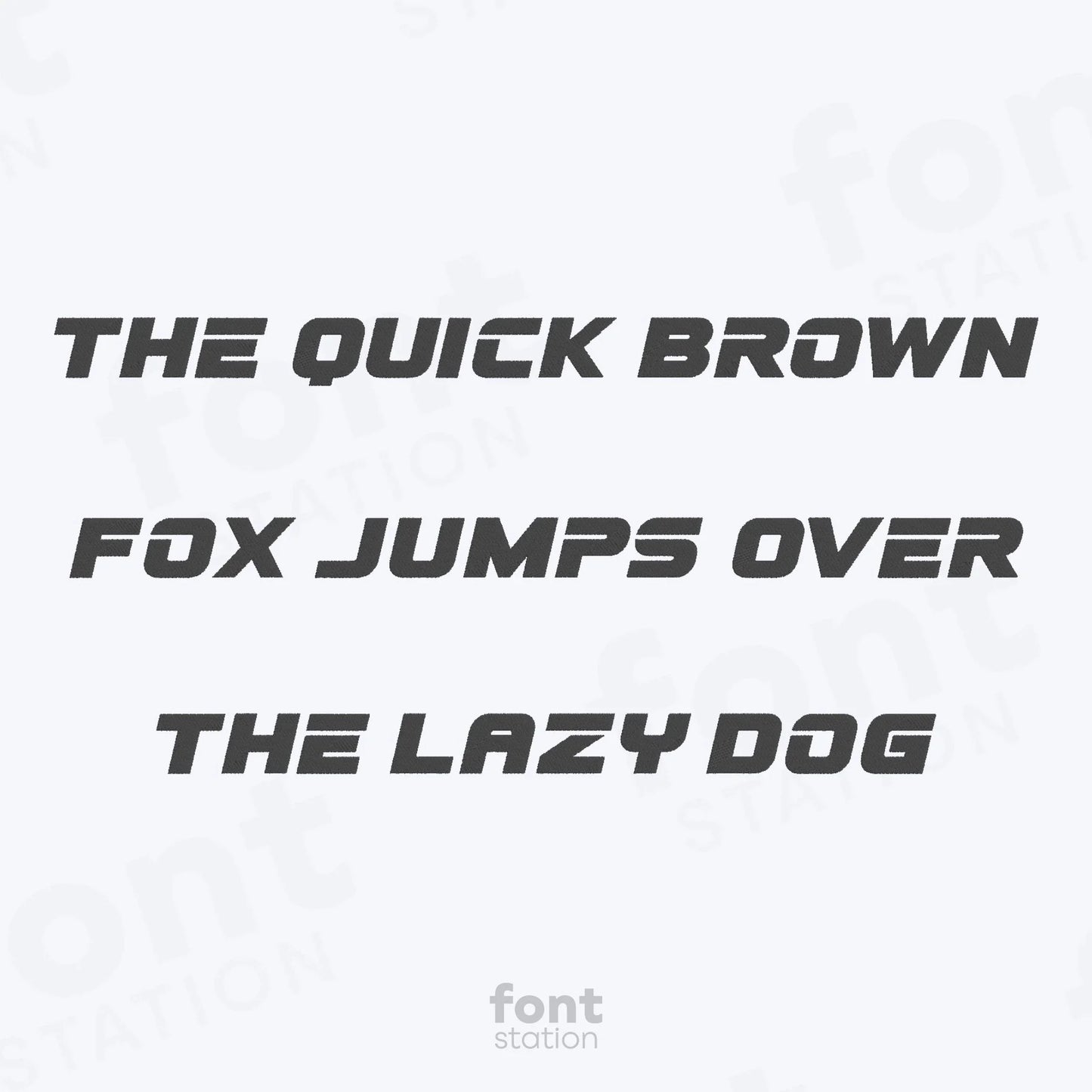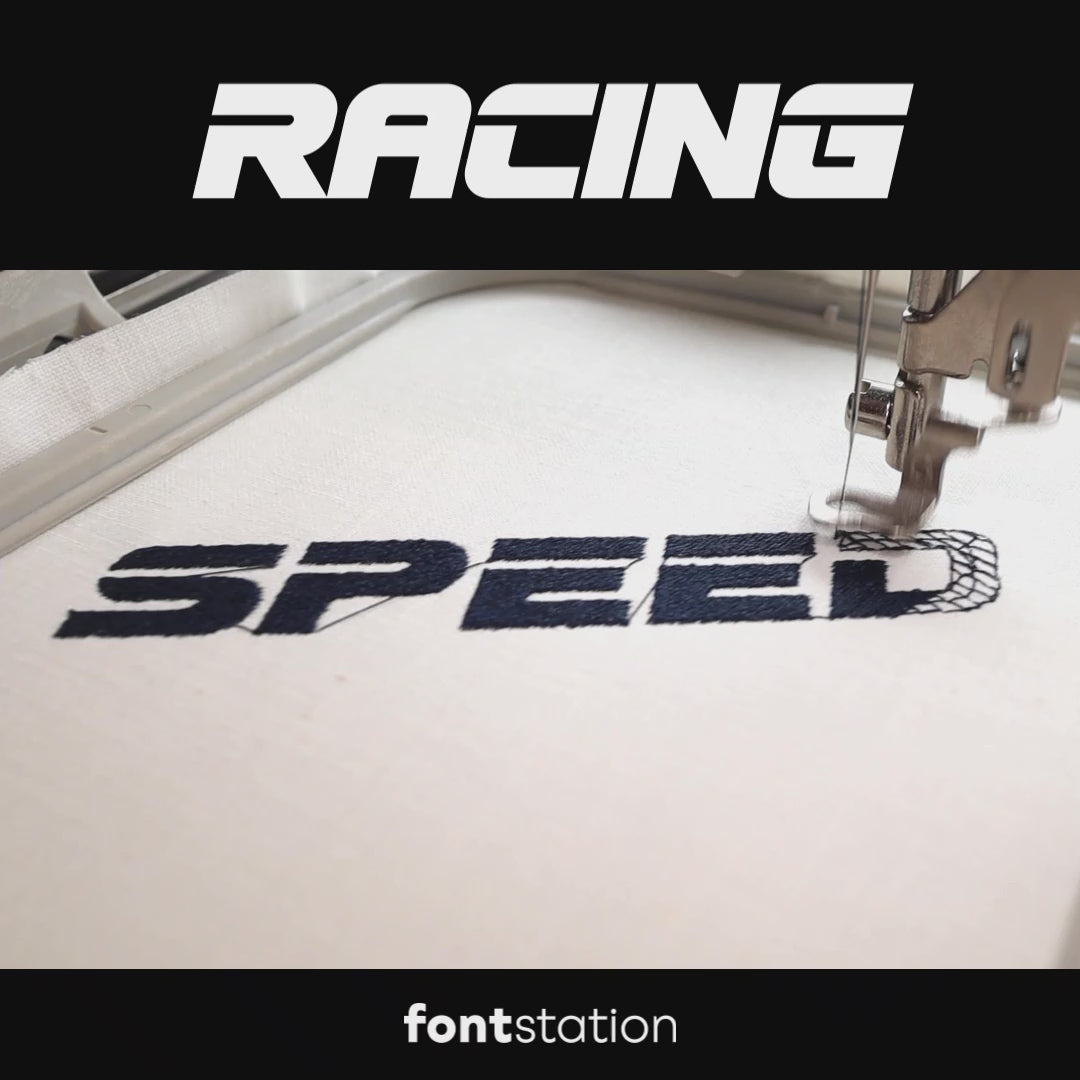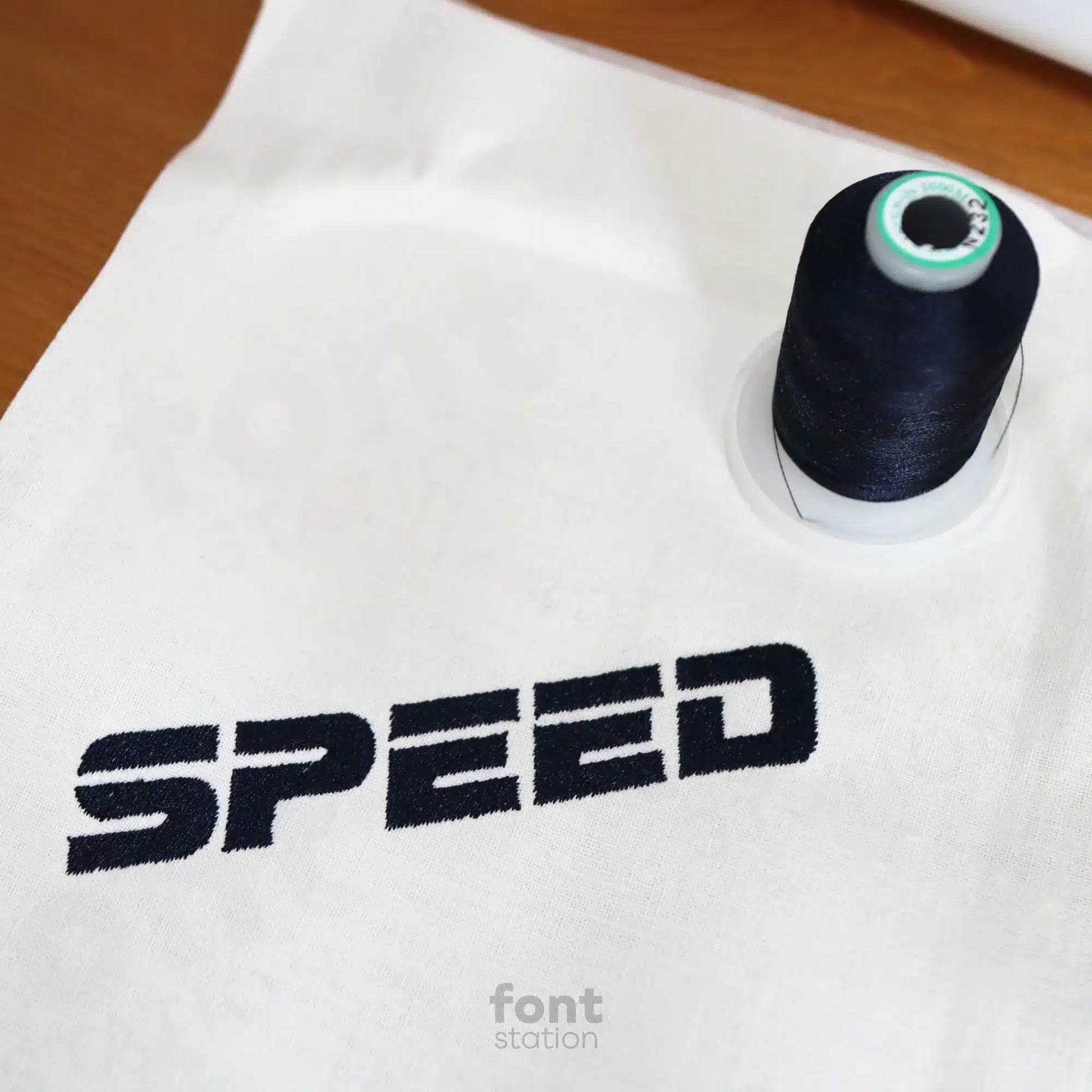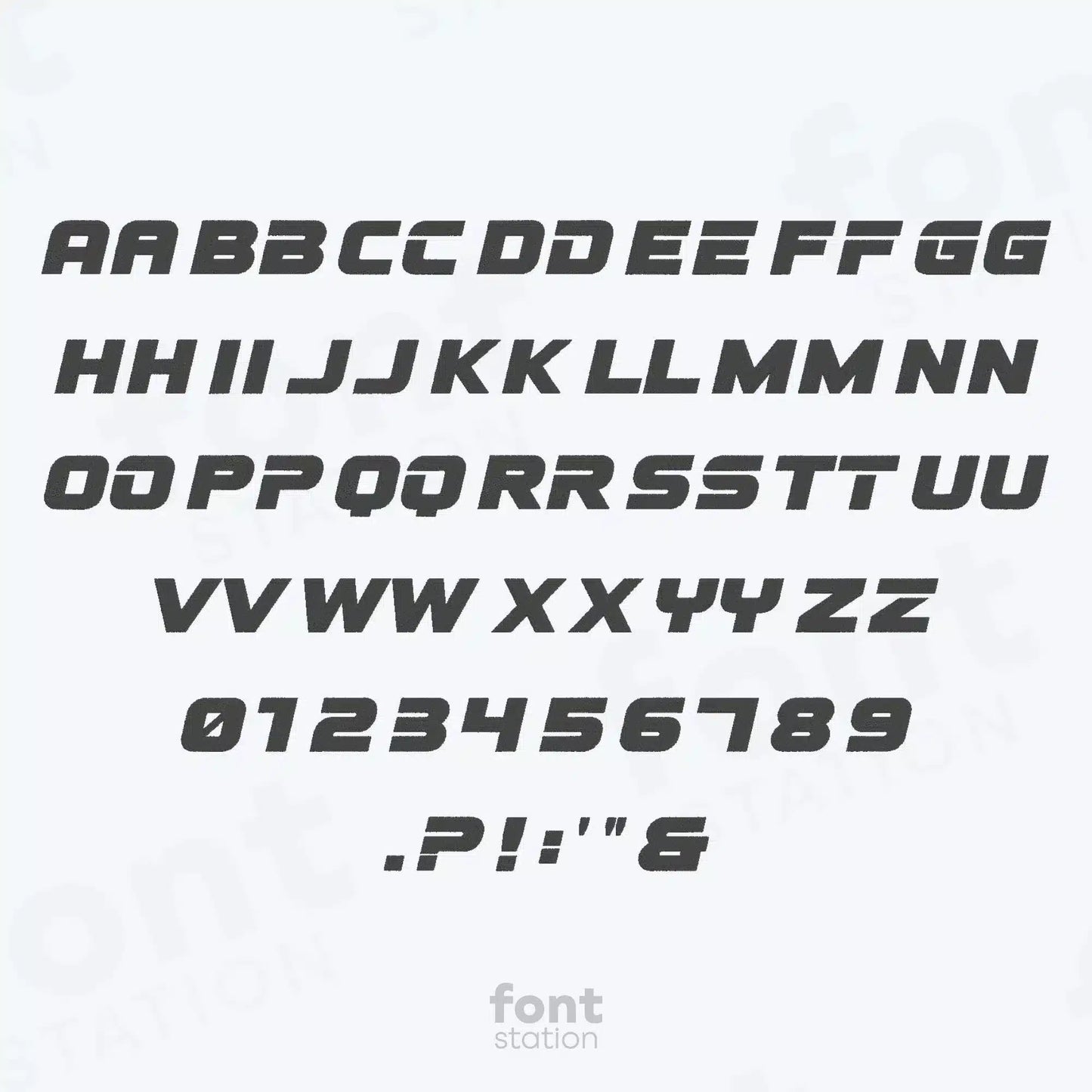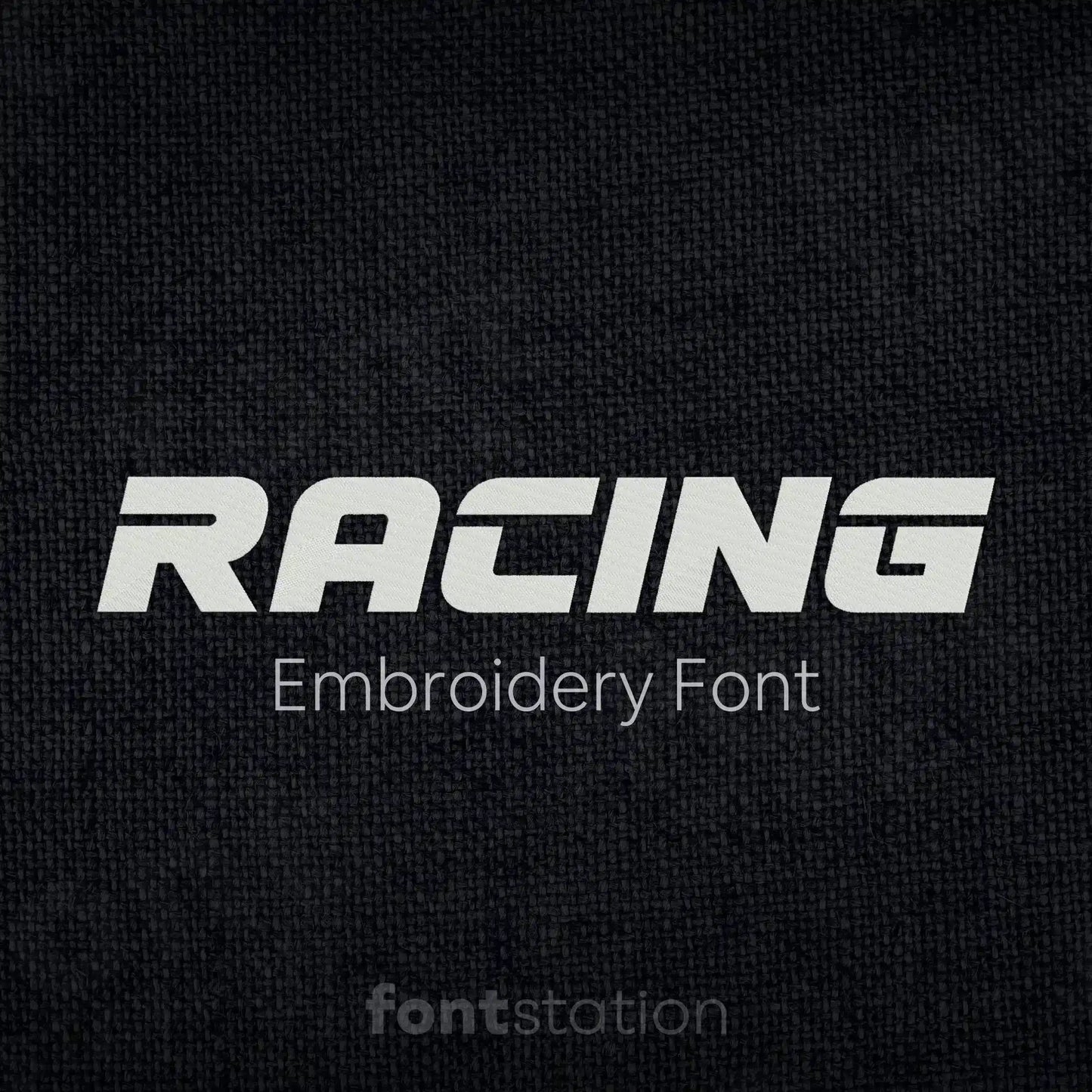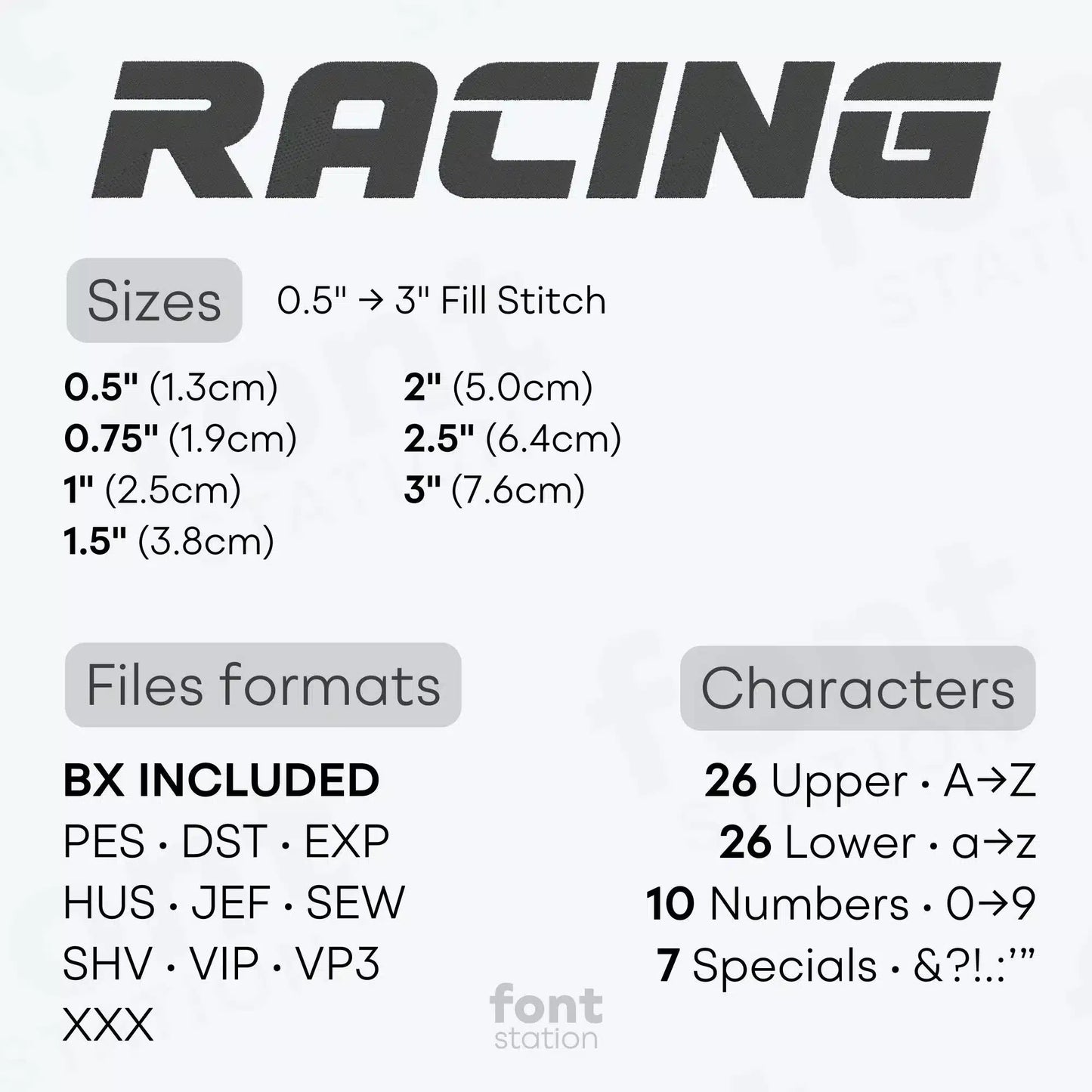
Racing Embroidery Font
Our Racing embroidery font is a bold, speed-inspired alphabet that makes a dynamic addition to your embroidery collection. Add high-energy style to your projects with these clean, machine-ready letters.
About the Racing Embroidery Font
Characters: 26 uppercase, 26 lowercase, 10 numbers, and symbols & ? ! . : ' "
Add high-speed style to your designs with our Racing embroidery font!
Fuel your embroidery projects with bold energy using our Racing embroidery font. Professionally digitized for clean, precise stitching on most fabrics, this speed-inspired alphabet is perfect for motorsport themes, racing gear, or dynamic lettering. Customers love its fast, sporty look, and we can't wait to see what you create with it!